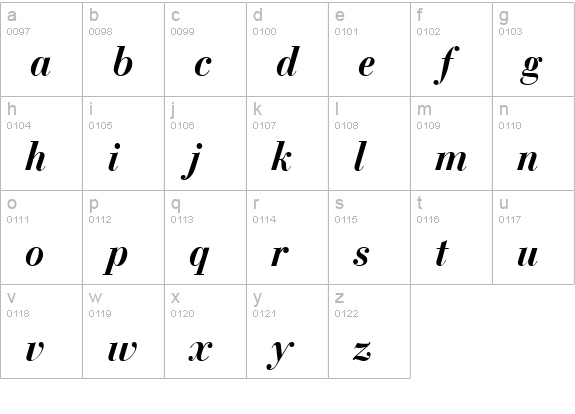
Boston fed kursiv Font Details
Introducing Boston Fed Kursiv font, a modern and elegant typeface that combines sophistication with a touch of playfulness. This font exudes a sense of timeless charm, making it perfect for a wide range of design projects. Its sleek lines and distinctive curves give your text a stylish edge, while still maintaining readability and clarity. One of the best things about Boston Fed Kursiv font is that it is completely free to download. You can easily access this versatile font at FontsMarket.com, where you can enhance your creative projects without any cost. Whether you're working on branding materials, invitations, posters, or any other design project, Boston Fed Kursiv font will add a touch of class and personality to your work. Don't miss out on this fantastic opportunity to elevate your designs with the Boston Fed Kursiv font. Download it for free today and let your creativity shine!